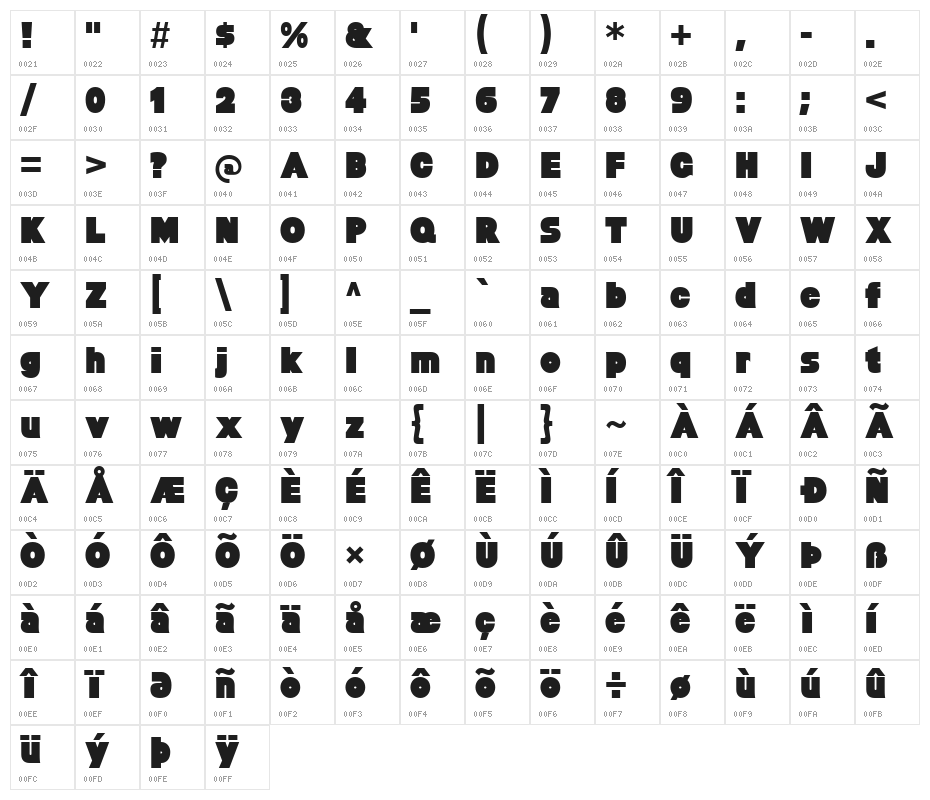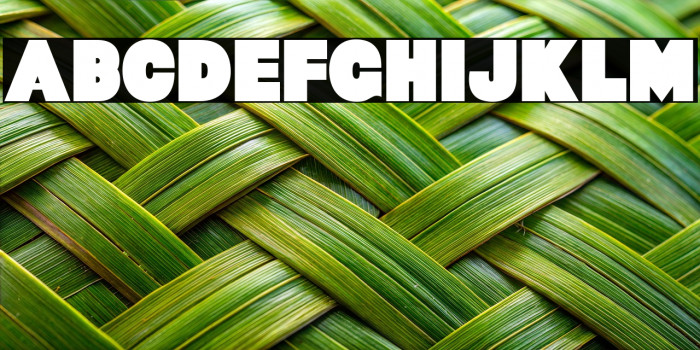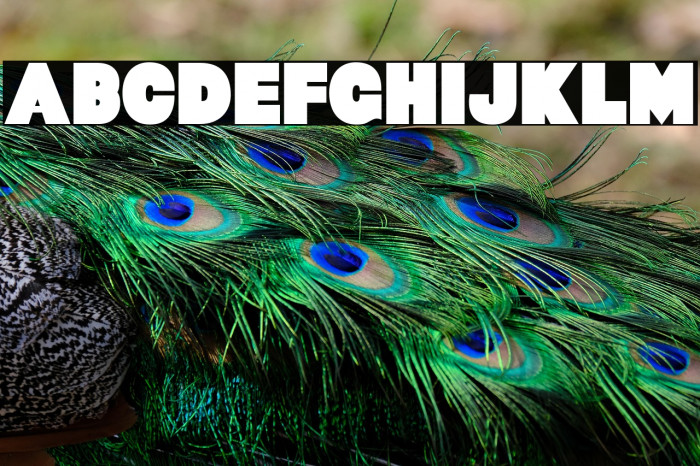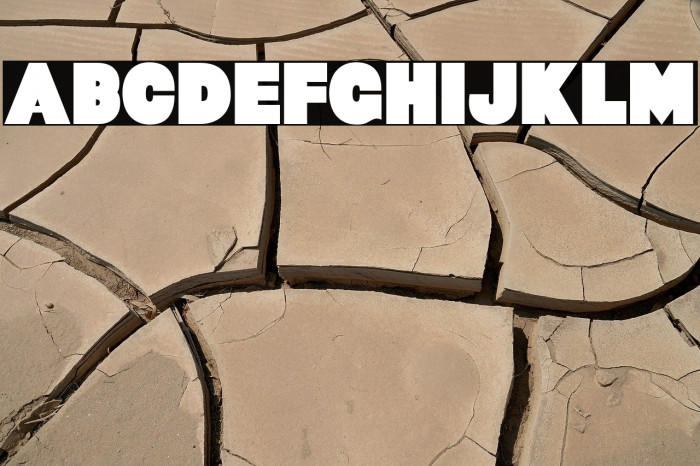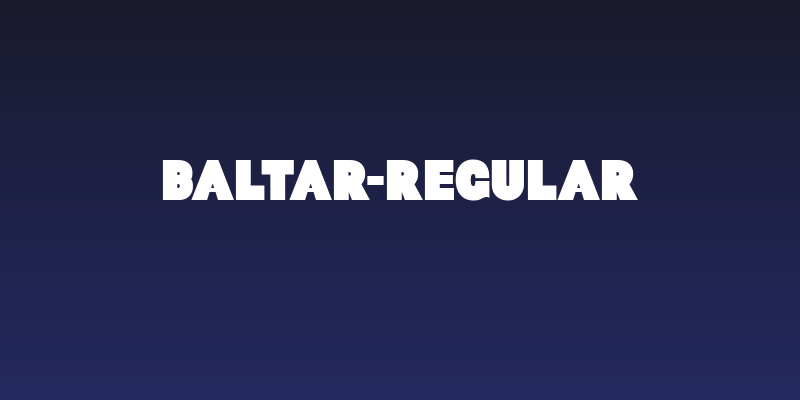
Baltar-Regular Font
Baltar-Regular Description
This bold and impactful font features thick, blocky characters with a strong presence. The uppercase and lowercase letters are uniformly wide, creating a sense of stability and strength. The numbers and special characters maintain this robust style, ensuring consistency across all elements. The font's design is straightforward yet powerful, making it suitable for attention-grabbing headlines and statements. Its geometric shapes and uniform stroke widths contribute to a modern and assertive appearance.
Proposed ProjectsIdeal for posters, headlines, branding, and any project requiring a bold statement.